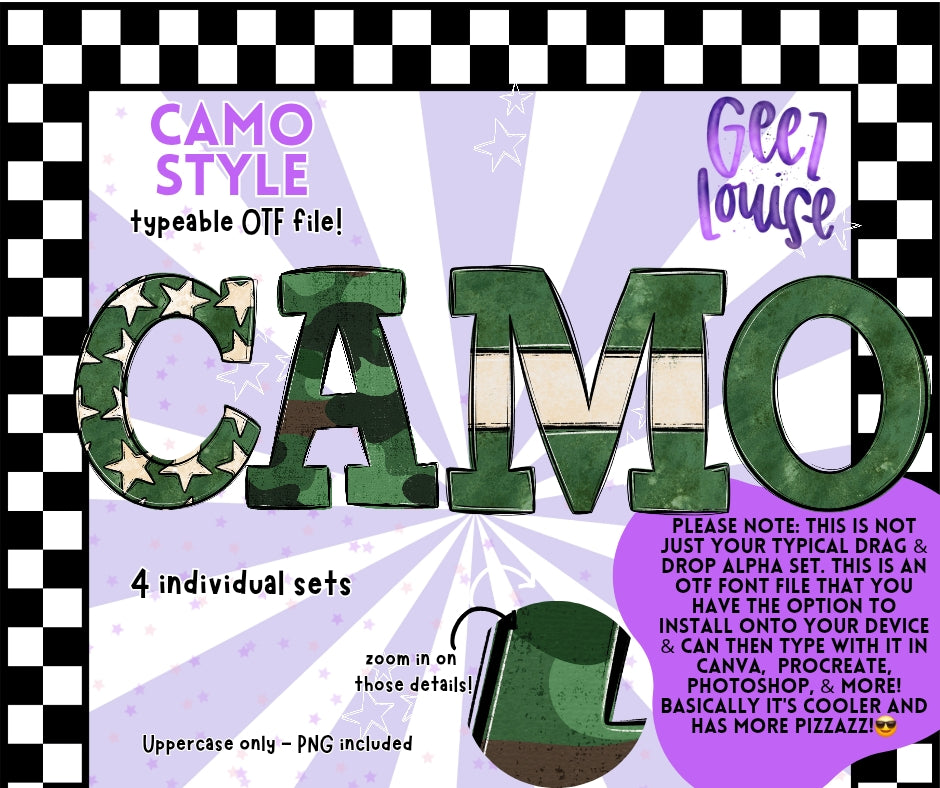
🪖 Camo Style – Typeable OTF Font + PNG Alpha Set (Includes 4 Styles!)
Add rugged, outdoorsy flair to your next design with the Camo Style Alpha Set! Featuring 4 individual camo-themed textures – including classic green camo, desert stripe, star print, and forest green – this set brings bold military vibes and natural textures to your creative projects.
Perfect for:
Hunting & outdoors designs
Military or patriotic projects
Sublimation designs & decals
Boy mom graphics, trucker hats, tumbler wraps
Event invites & social posts
This camo-inspired font is a go-to for year-round rugged design themes – from Father's Day to Memorial Day and beyond.